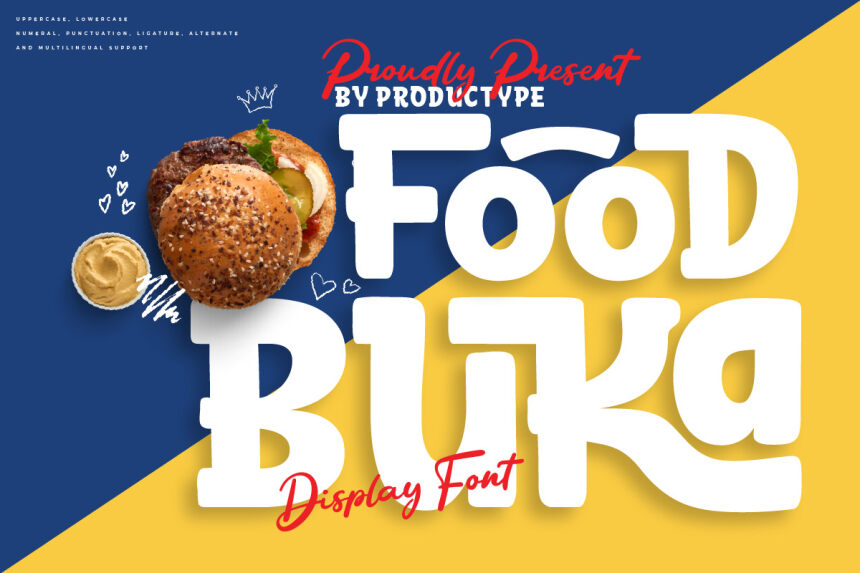
Food Buka by Productype is a display font that bursts with playful personality. Its cartoon-style design and bold weight create a lively and inviting aesthetic, perfect for catching the eye. The rounded and soft edges give it a friendly, approachable feel, making it ideal for projects that seek to convey warmth and fun.